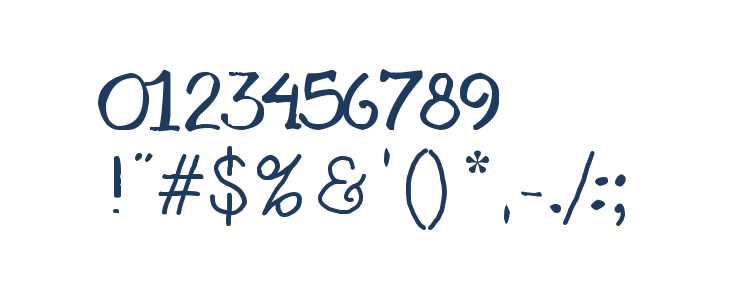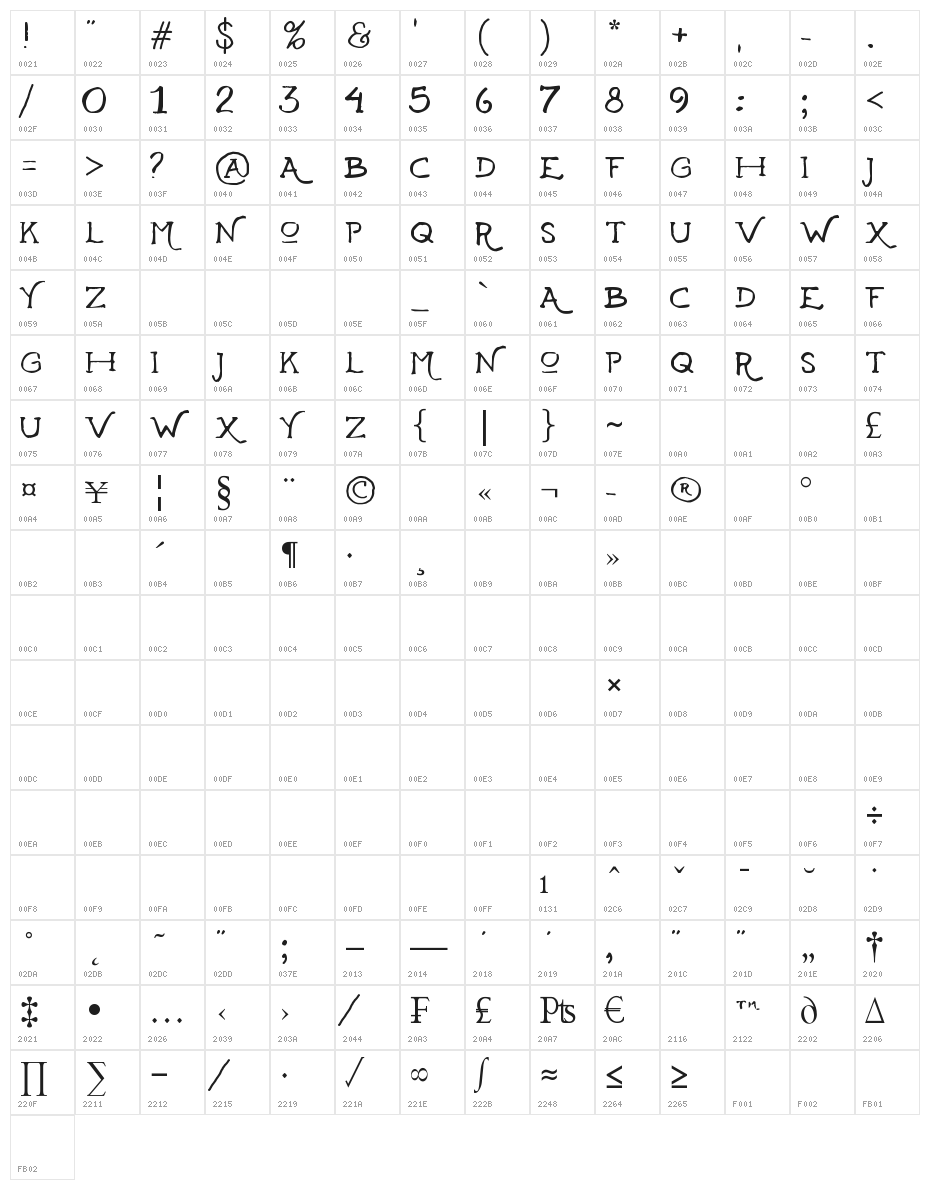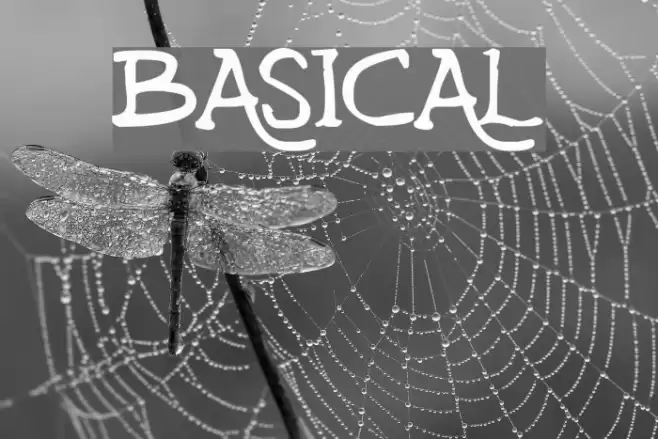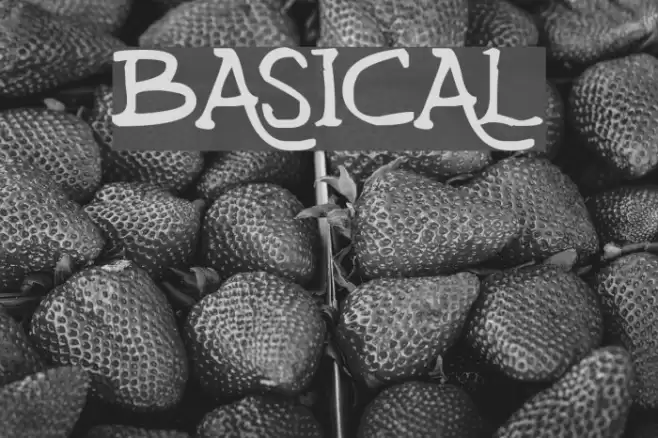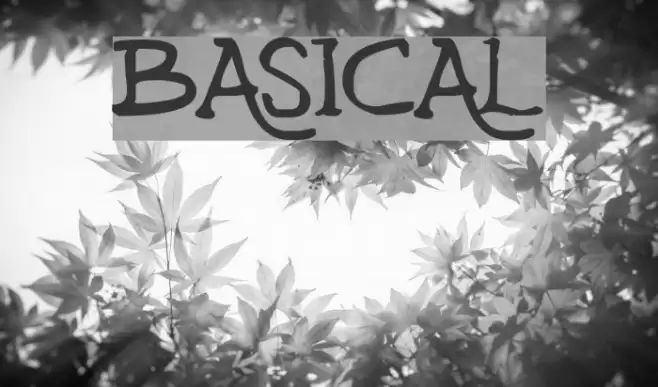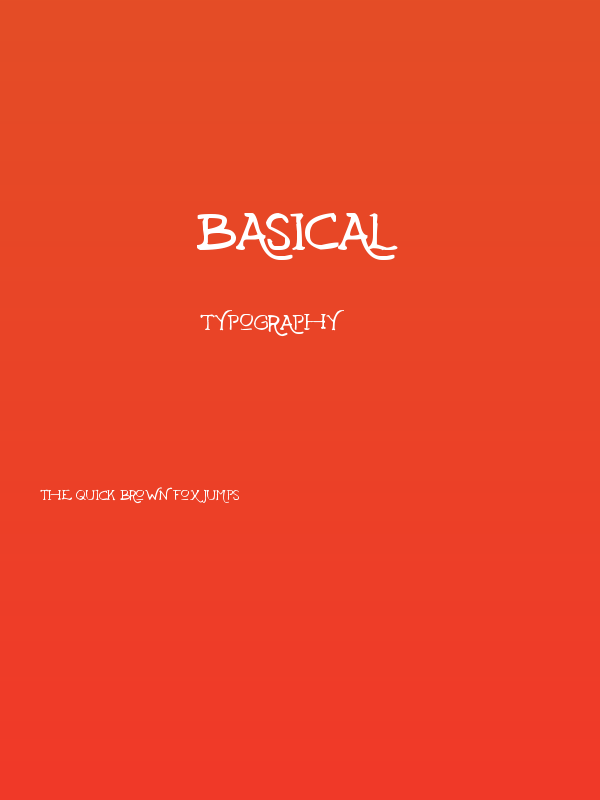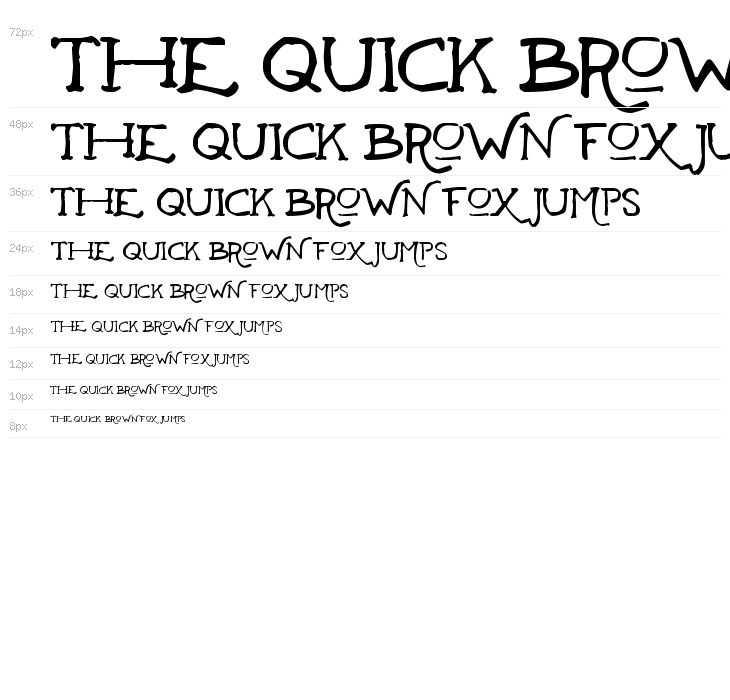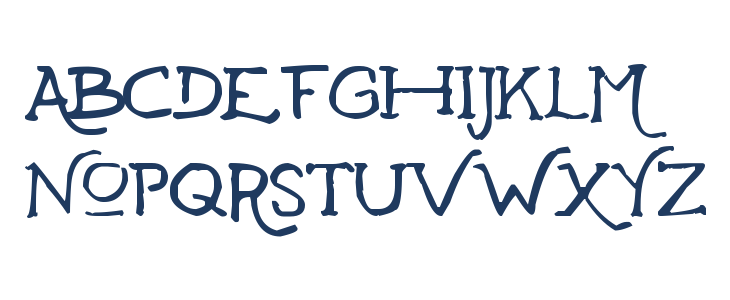
Basical Font
Basical Description
This font features a playful and whimsical design, characterized by its irregular and hand-drawn appearance. The letters have a slightly uneven baseline, adding to the casual and informal feel. The strokes are varied in thickness, giving a dynamic and lively look. The uppercase letters are bold and prominent, while the lowercase letters maintain a consistent style with slightly exaggerated curves and loops. The numerals are similarly styled, with a quirky and artistic flair. Special characters are included, matching the overall aesthetic with a creative touch. This font is ideal for projects that require a fun and engaging visual impact.
Proposed ProjectsPerfect for children's books, playful branding, greeting cards, and creative posters.